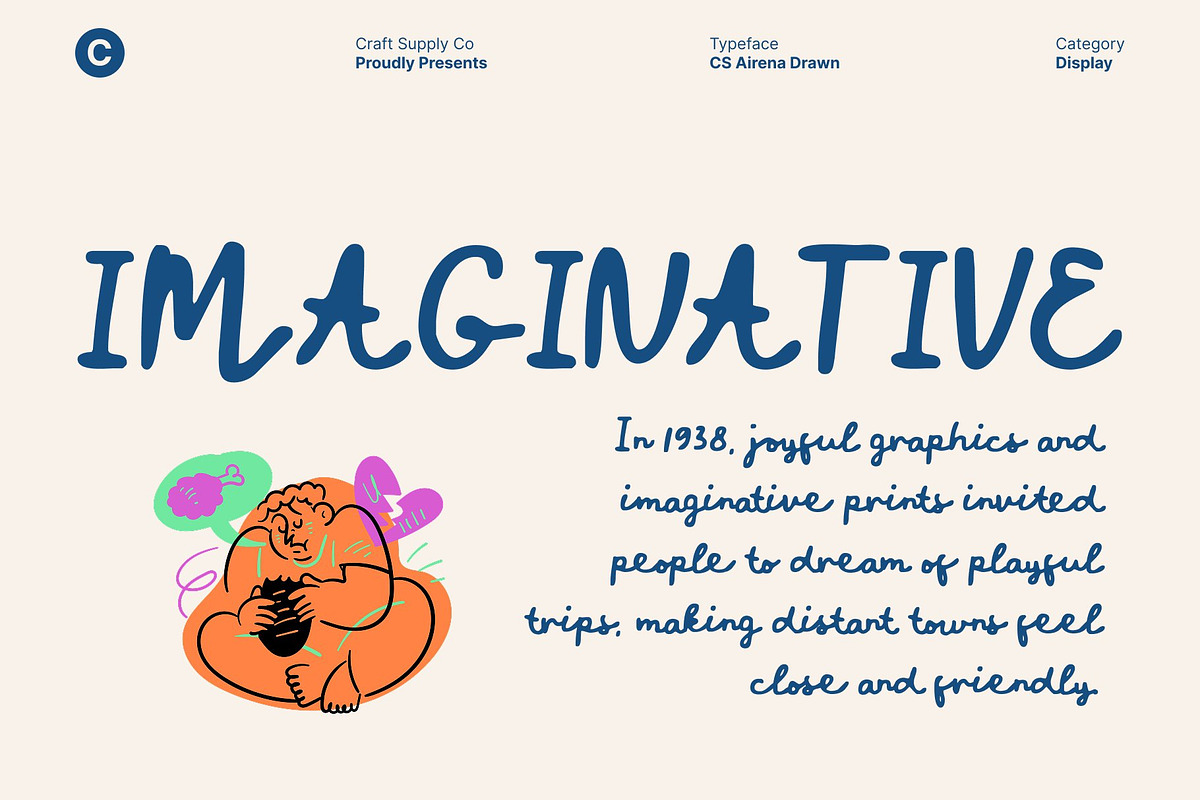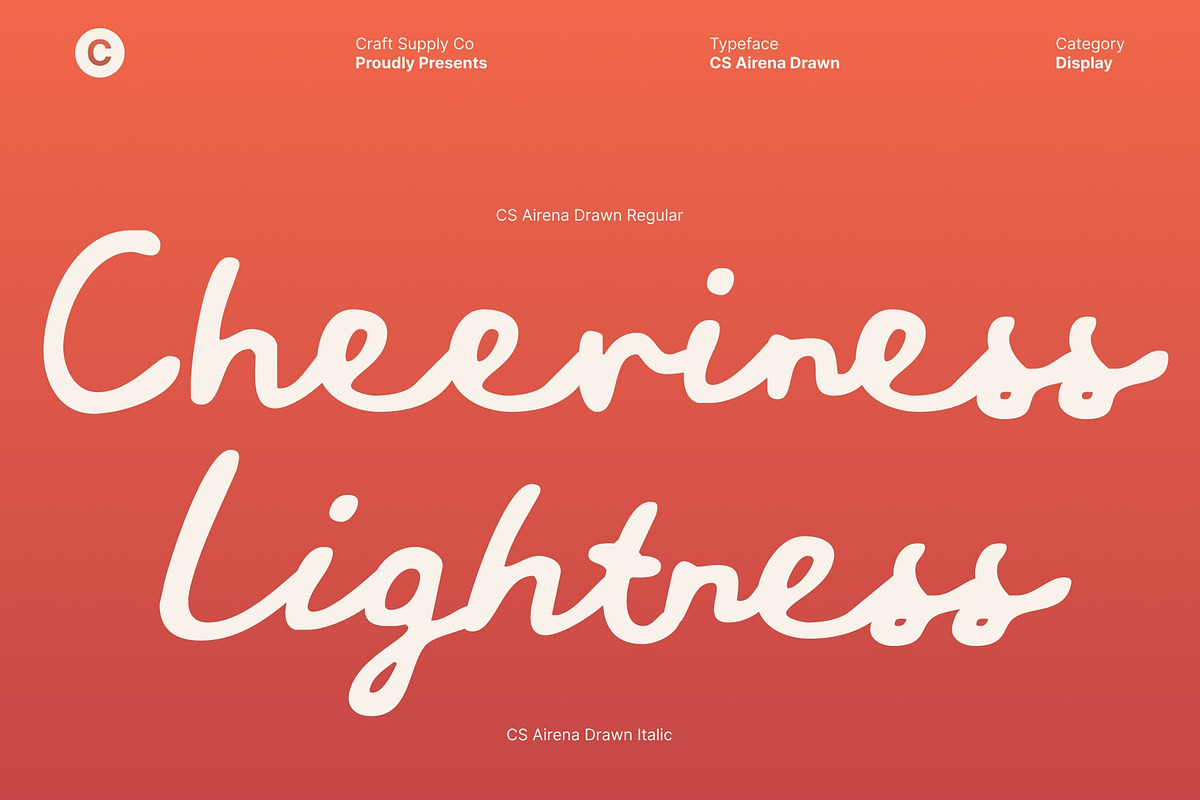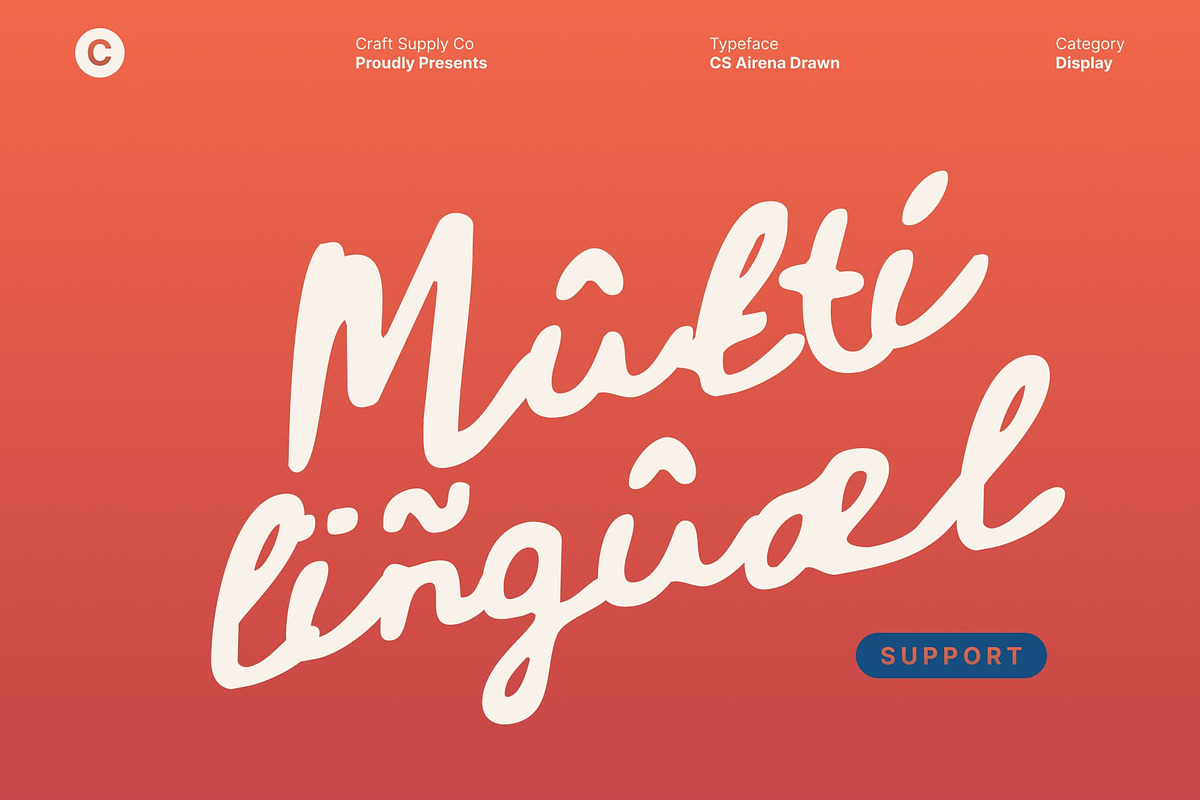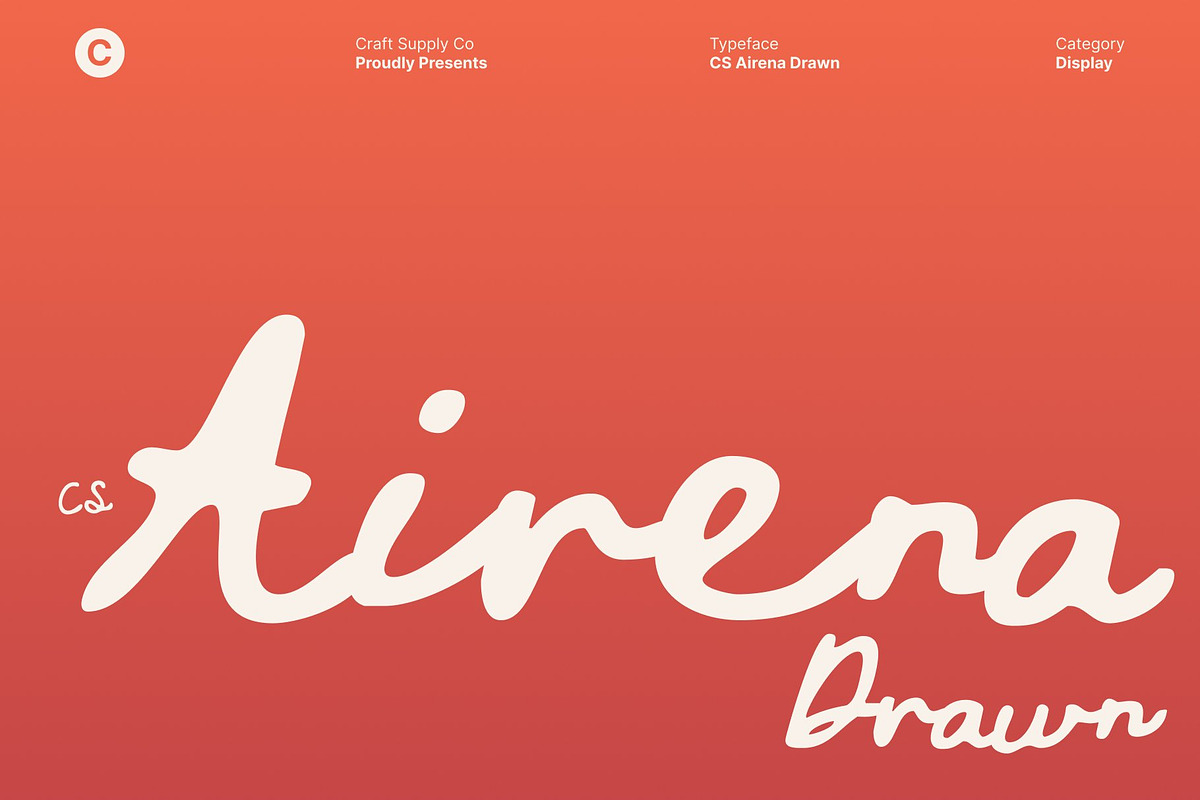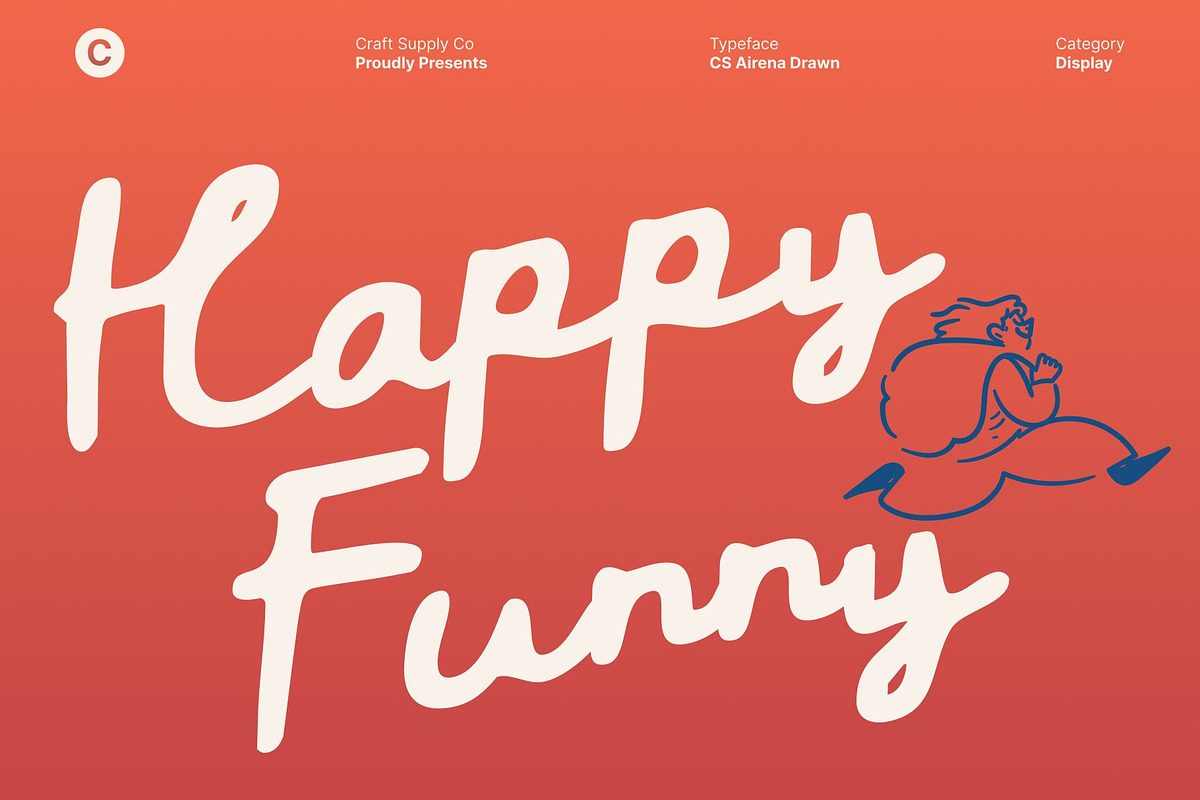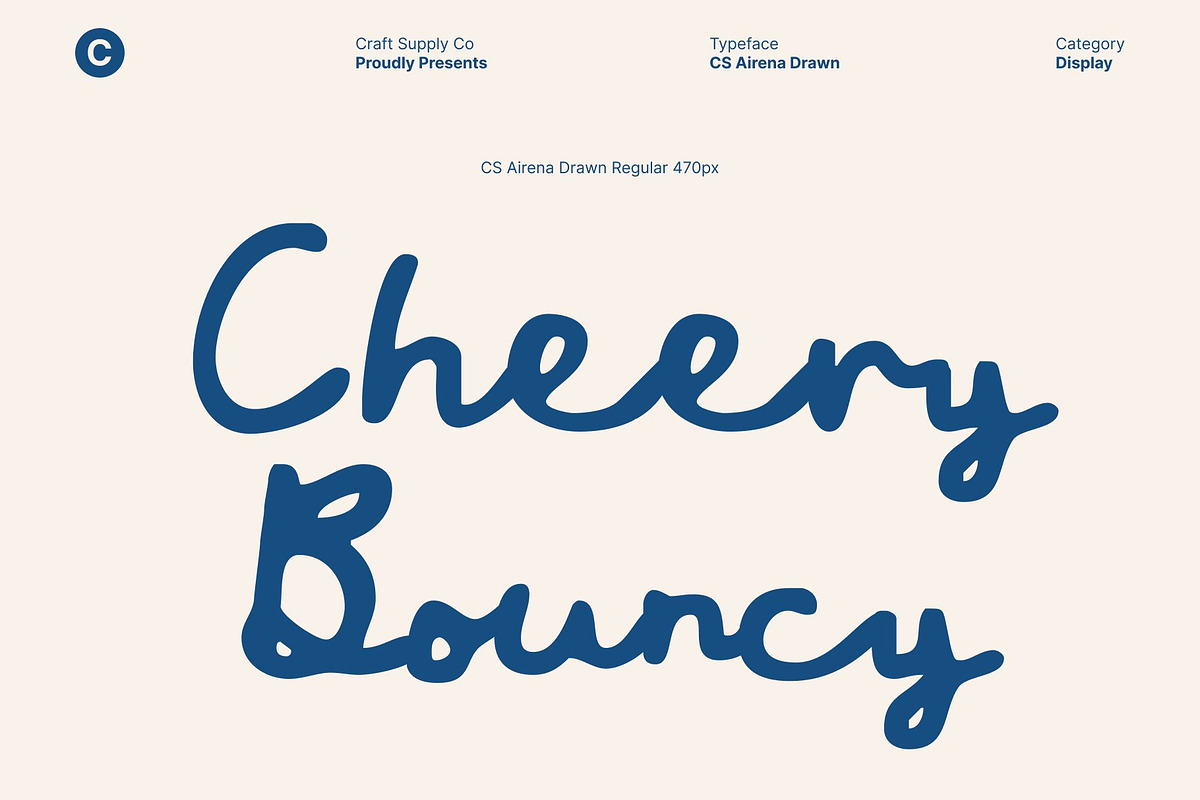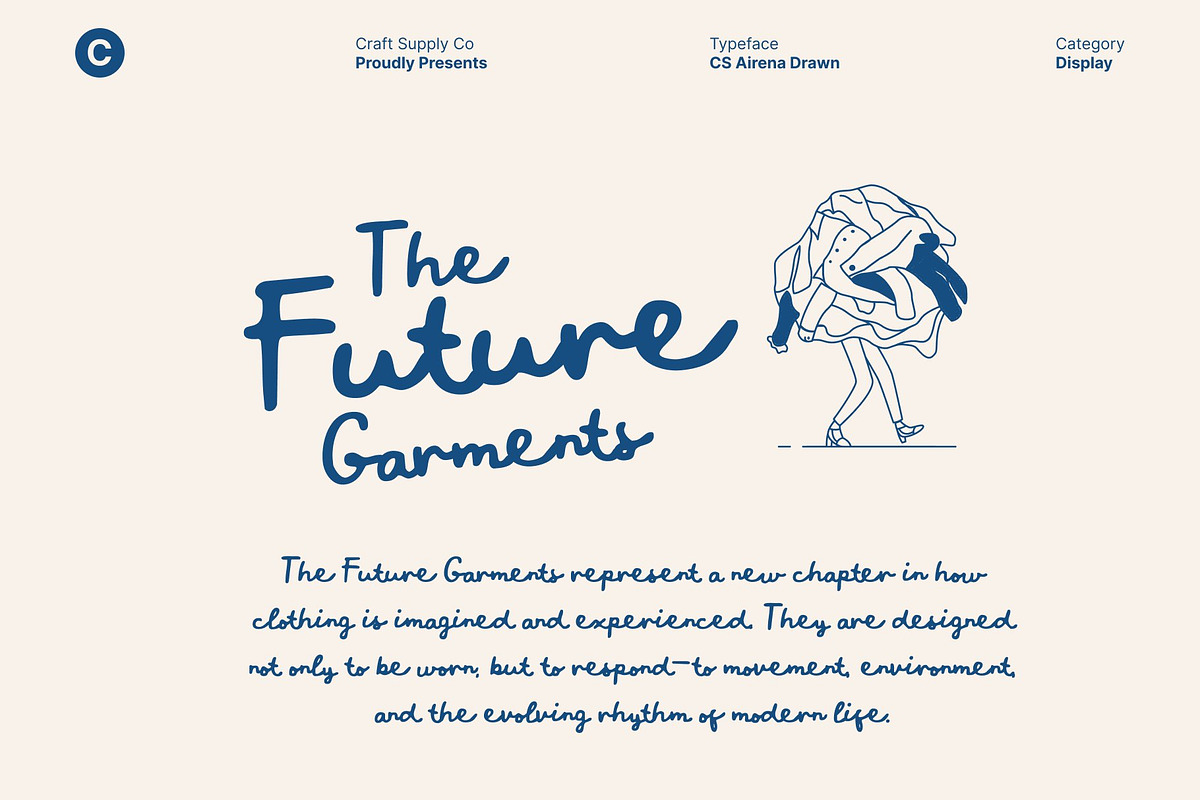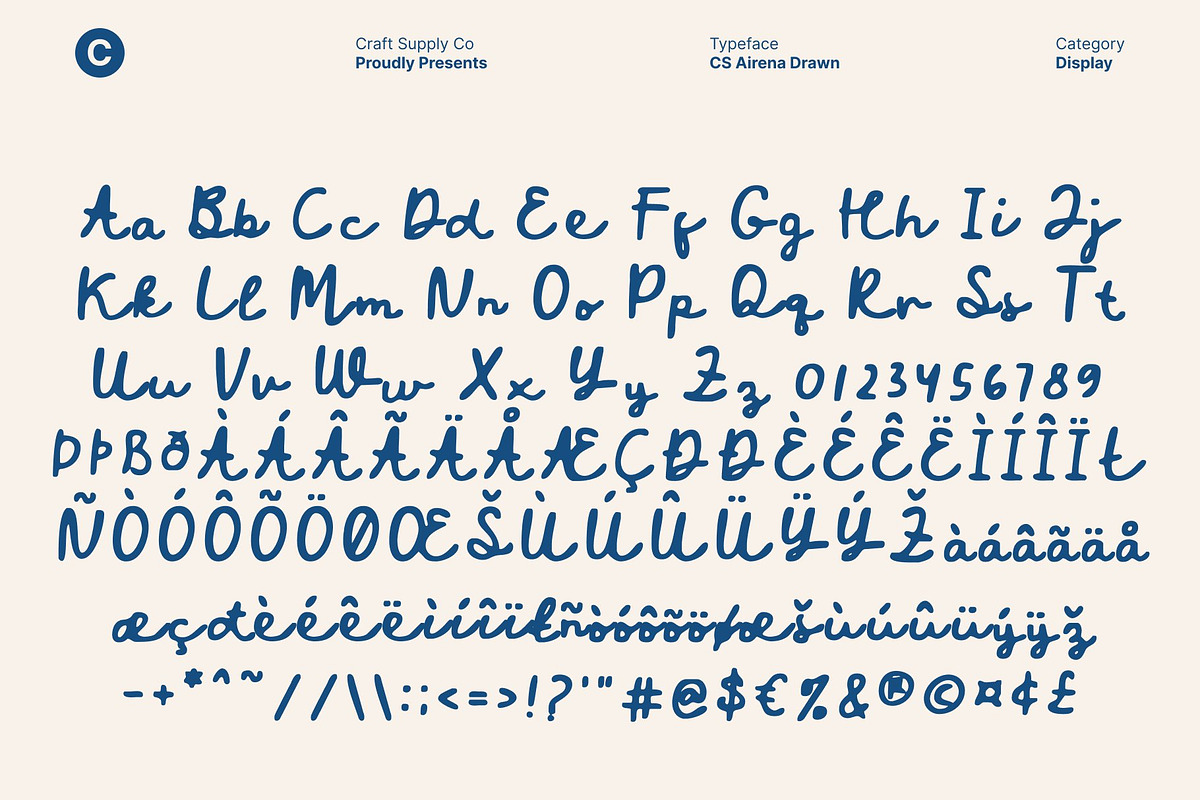
CS Airena Drawn
CS Airena Drawn – Romantic Script Font with Mediterranean Elegance
Graceful Strokes with Timeless Script Beauty This is a romantic script font inspired by the effortless beauty of Mediterranean handwriting. Its flowing strokes and elegant curves create a soft visual rhythm that feels warm, refined, and emotionally rich. The graceful letterforms glide naturally, giving every word a sense of intimacy and timeless sophistication.
Hand-Drawn Texture with Natural Charm Enhanced with a subtle drawn effect, this font carries a natural, handcrafted texture that makes each character feel personal and alive. This organic touch adds depth and authenticity, balancing elegance with a relaxed, human feel. The result is a script font that looks luxurious yet approachable, refined yet expressive.
Mediterranean Flair for Distinctive Expression Infused with coastal romance and classic European elegance, this font evokes sunlit landscapes, gentle breezes, and artistic heritage. Its smooth loops and fluid connections bring a sense of serenity and charm, making it ideal for designs that aim to feel emotional, poetic, and memorable.
Perfect for Weddings, Branding, and Luxury Design This font shines in wedding invitations, event stationery, fashion branding, beauty packaging, and artisan products. Whether used for logos, headlines, or elegant accents, it elevates designs with romance, warmth, and Mediterranean-inspired sophistication turning typography into a beautiful visual experience.